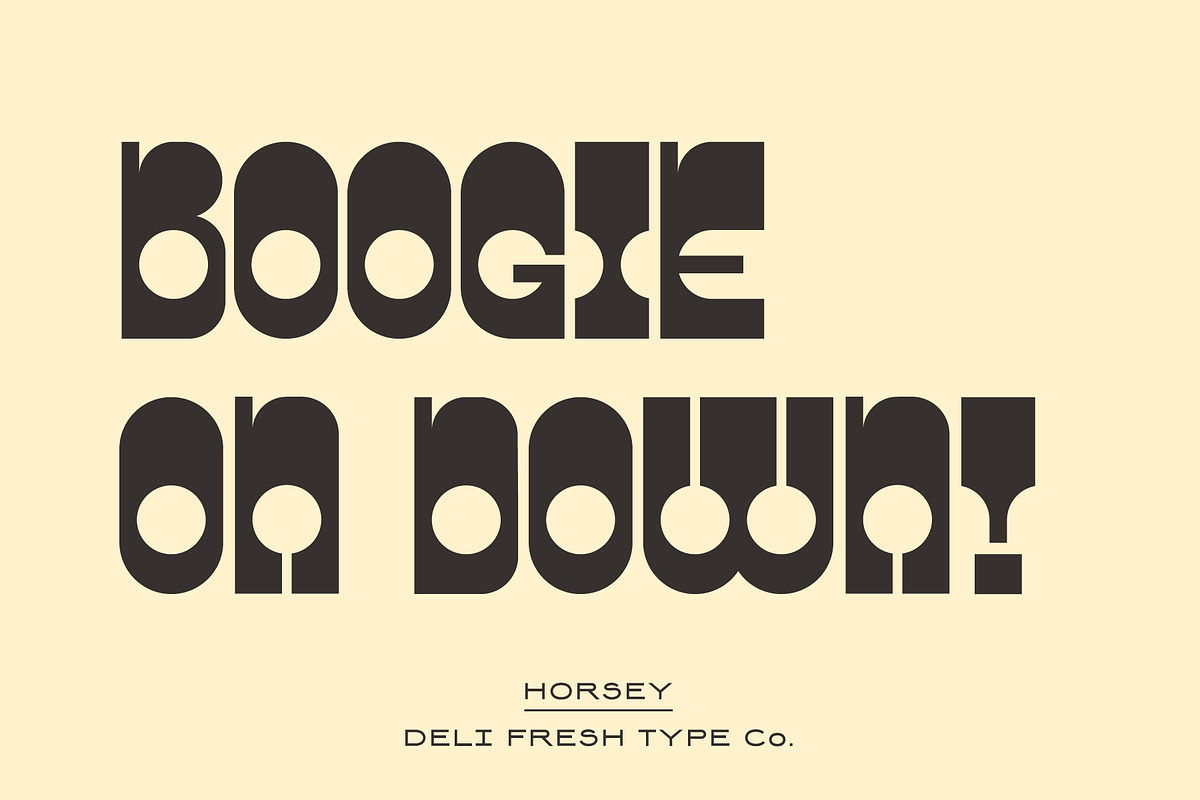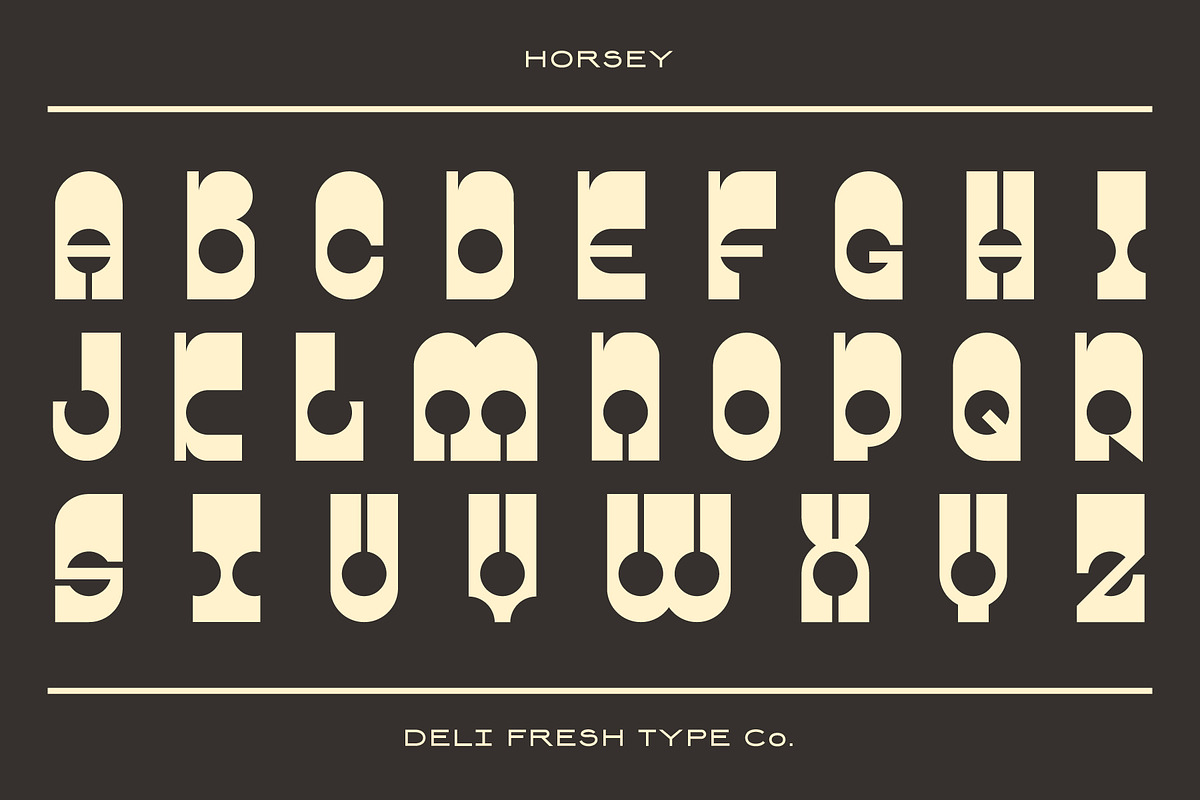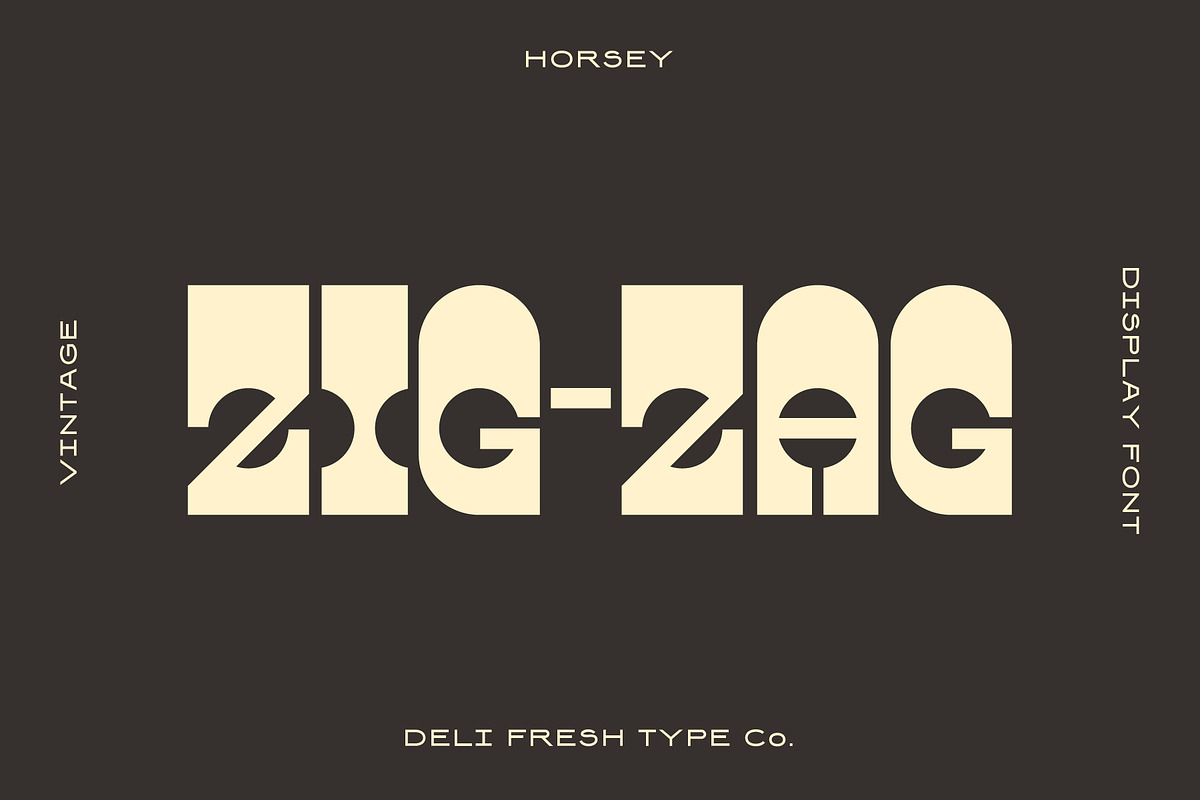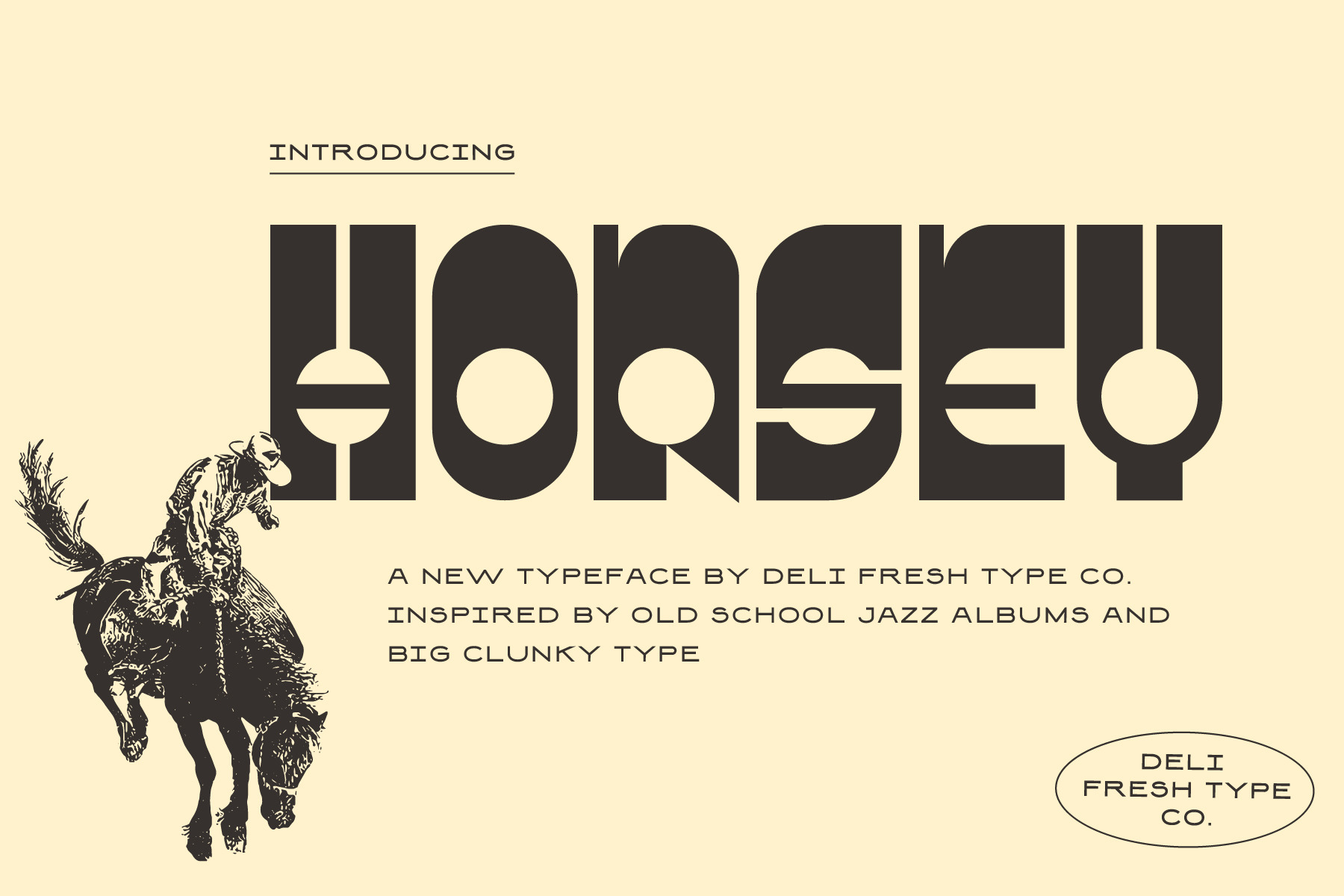
Horsey: A Big Clunky Typeface
A vintage display typeface inspired by hand painted corner store signs.
This hefty font comes with capitals, numerals, and a smattering of special characters.